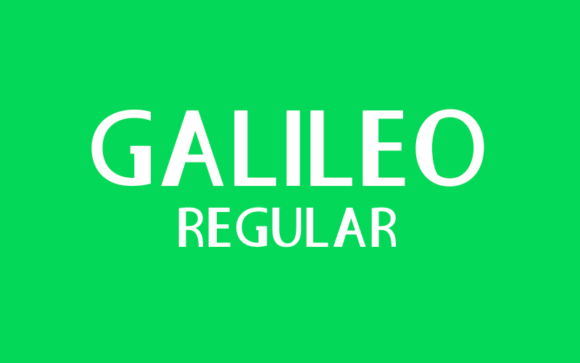
Discovering the Perfect Font: A Designer’s Dream
As a designer, have you ever stared at a blank screen, frantically searching for the perfect font to bring your project to life? The thrill of the hunt, the excitement of discovering a new font that perfectly captures the essence of your design – it’s a feeling like no other. And that’s exactly what happens when you stumble upon the Galileo Regular Font.
This minimalist sans serif type font is more than just a pretty face; it’s a versatile tool that can elevate any design. Suitable for a wide variety of projects, from corporate logos to editorial layouts, the Galileo Regular Font is the perfect companion for designers looking to create clean, modern, and professional-looking designs.
With its sleek lines and simple elegance, the Galileo Regular Font is a valuable asset for any designer’s toolkit. Whether you’re working on a new branding project or a magazine spread, this font is sure to deliver – and with its ease of use and versatility, you’ll wonder how you ever managed without it.
- Unique Characteristics: Elegant, modern design with a subtle flair of classic typography, ideal for editorial, publishing, and design applications
Galileo Regular Font Review
I’ve had the chance to work with the Galileo Regular font on a recent project, and I’m sharing my honest thoughts on it. ✨ One thing that really stands out is its legibility – it’s clear and easy to read, even at smaller font sizes. The font’s x-height is well-balanced, making it suitable for body text and headings alike.
Another aspect that I appreciate is the font’s neutrality. It’s not too bold or too subtle, which makes it a great choice for a wide range of applications. The Galileo Regular font also comes with a decent range of weights, which can be useful for creating visual hierarchies.
While the Galileo Regular font has its strengths, there are a few areas where it falls short. ⚠️ One major limitation is its limited language support. It’s not ideal for projects that require text in multiple languages, as it may not cover all the necessary glyphs.
Another drawback is the font’s somewhat generic feel. It’s not particularly distinctive or memorable, which might make it harder to create a strong brand identity with this font.
Overall, I’d say the Galileo Regular font is a solid choice for everyday use, but it may not be the best fit for more complex or high-stakes projects. If you’re looking for a clean, readable font that’s easy to work with, the Galileo Regular might be worth considering.
- Legible and clear at various font sizes
- Well-balanced x-height
- Neutral, not too bold or too subtle
- Decent range of weights
- Limited language support
- Somewhat generic feel
Galileo Regular Font: A Practical Application Guide
Tips for Getting the Most Out of Galileo Regular
Use Galileo Regular for body text in presentations and documents to create a clean and professional look.
Pair Galileo Regular with a bold font for headings to create visual hierarchy and emphasis.
Experiment with different font sizes and styles to add visual interest to your designs.
Galileo Regular is ideal for:
Corporate presentations and reports
Marketing materials and brochures
Academic papers and theses
Alternatives to Galileo Regular Font
The Galileo Regular Font is a classic sans-serif font known for its clean lines and minimalism. However, there are many other fonts that can serve as alternatives for designers. Here are a few options:
Open Sans is a popular sans-serif font that is highly legible and versatile. It is often used in digital design, including web and mobile applications. Open Sans is similar to Galileo Regular Font in its clean lines and simplicity, but it has a slightly more modern feel. It is ideal for use in digital interfaces, such as websites, apps, and software.
Is the Galileo Regular Font available in web font formats?
Yes, the Galileo Regular Font is available in WOFF, WOFF2, and TTF formats, making it easy to integrate into your web project. You can also use the font on mobile devices via the font’s mobile-optimized versions.
Can I use the Galileo Regular Font for print materials?